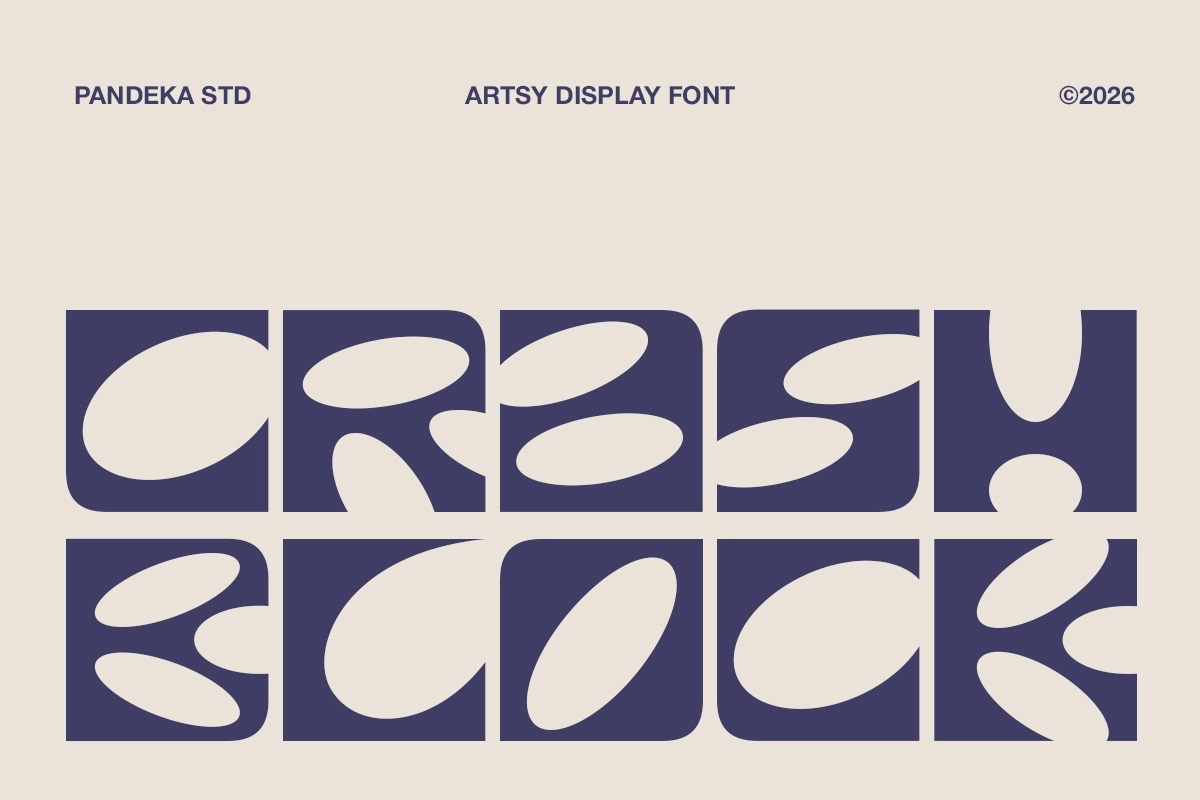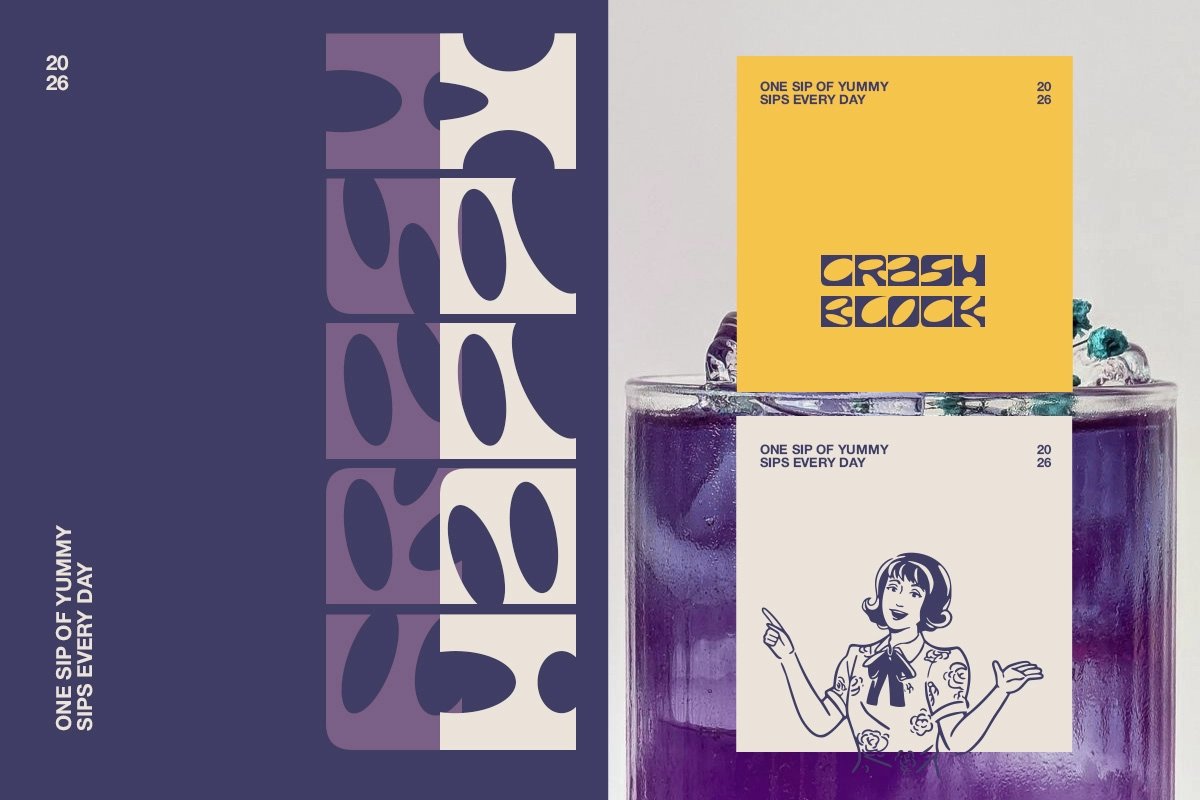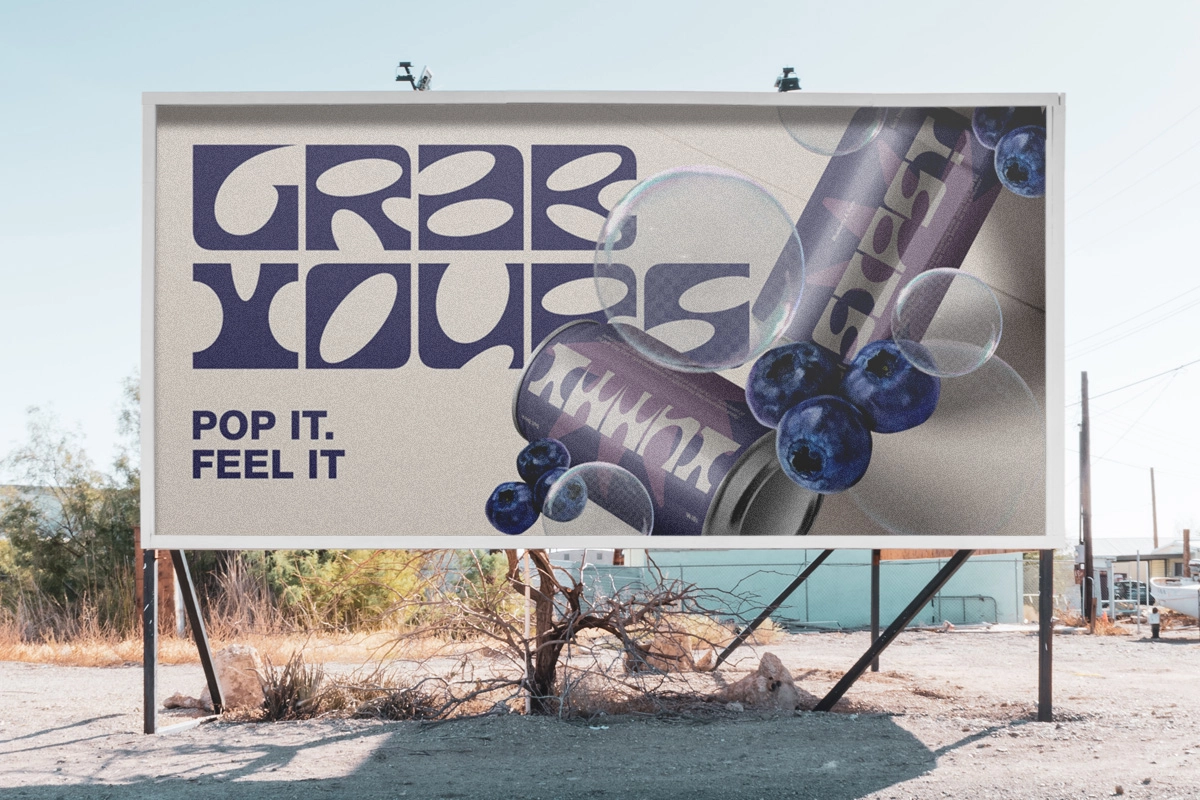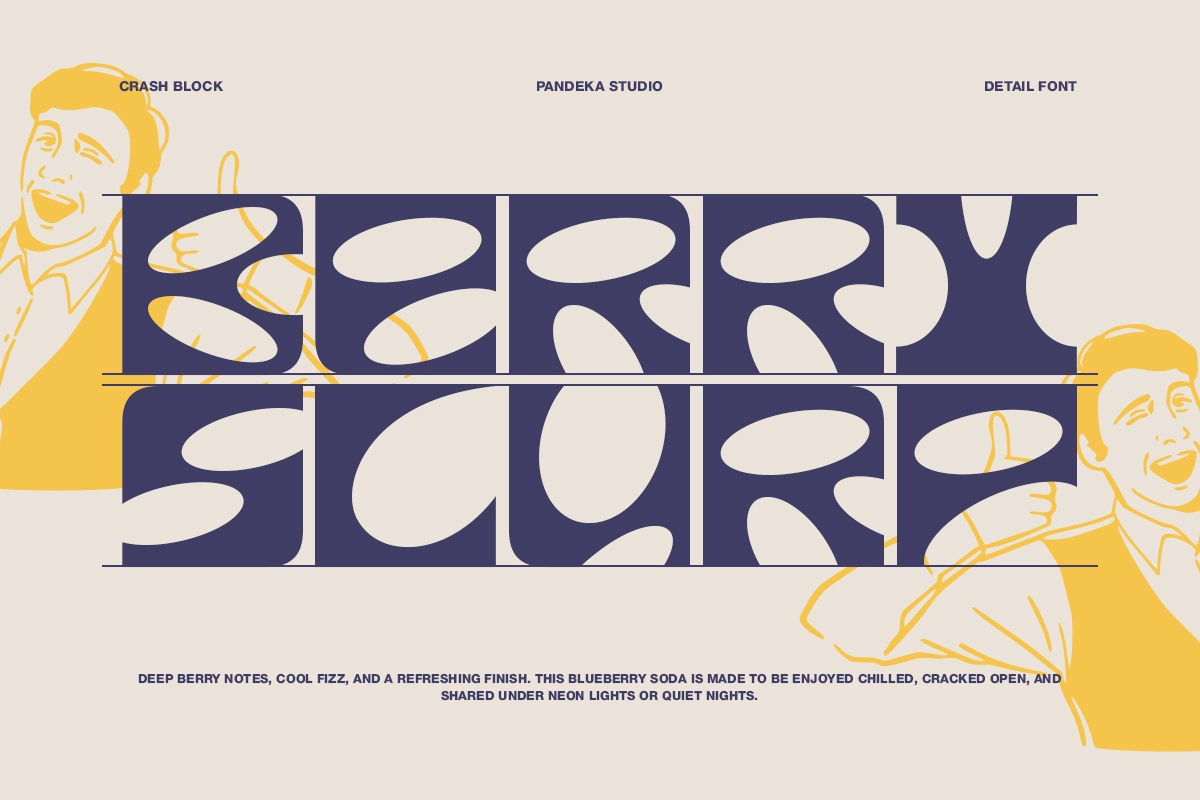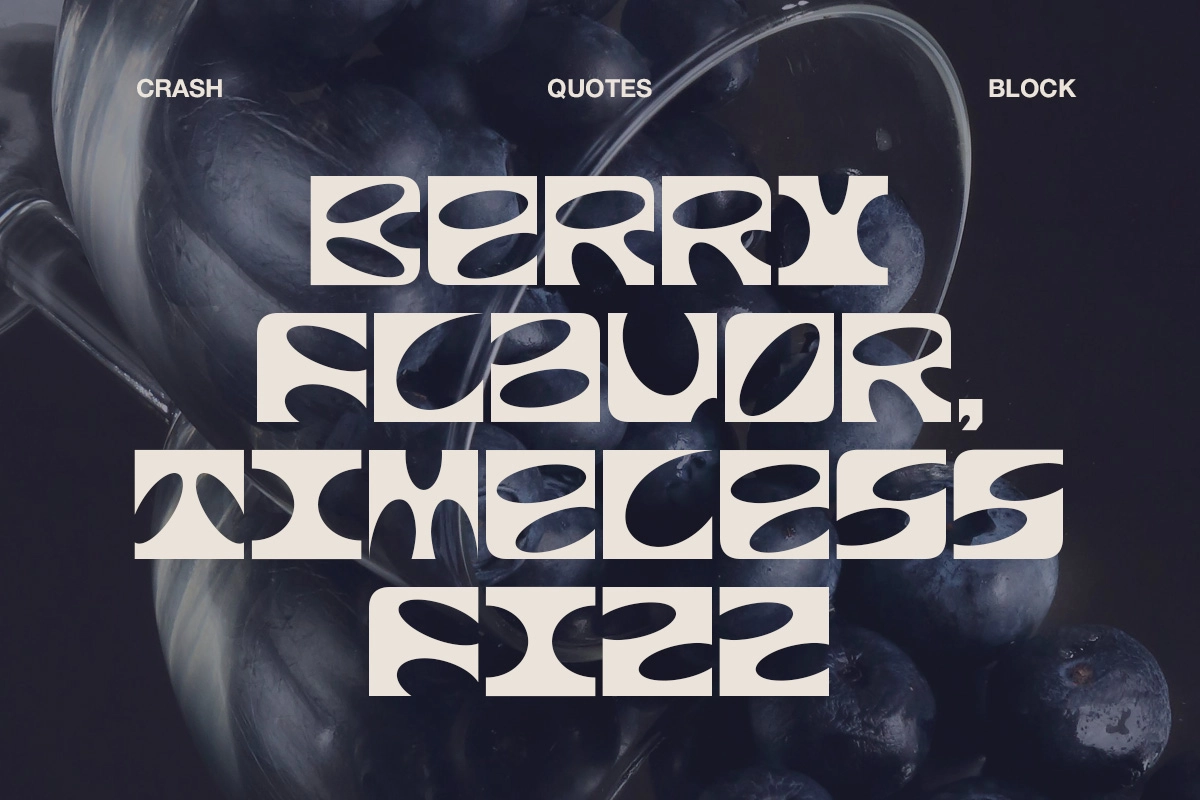
Crash Block - Groovy Modular Display Font
Crash Block is a bold groovy display font built from chunky modular blocks, each letter carved from overlapping oval counters that tilt and warp against the frame. The negative space reads almost liquid, like the strokes got pressed and stretched before they set.
Crash Block holds up loudest in short, punchy words, where the warped counters have room to read as shapes first and letters second. Use it for beverage branding, record labels, streetwear graphics, gig posters, festival flyers, packaging, album covers, social campaigns, and zine covers.
• Uppercase only;
• Numerals, punctuation & symbols;
• Multilingual support;